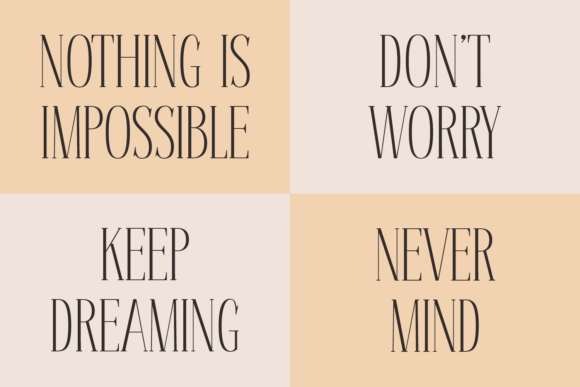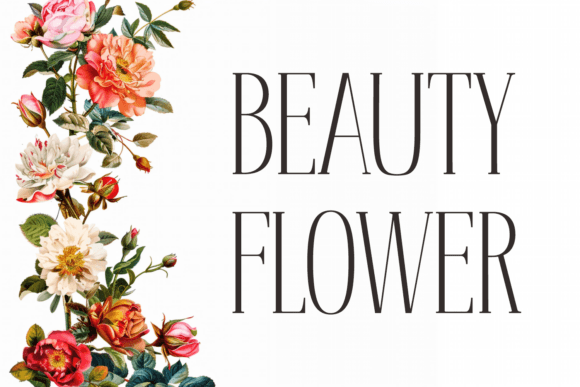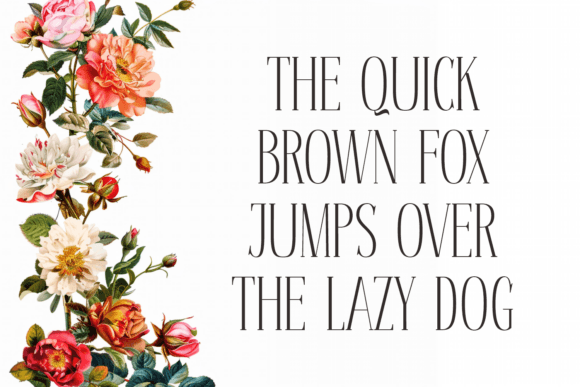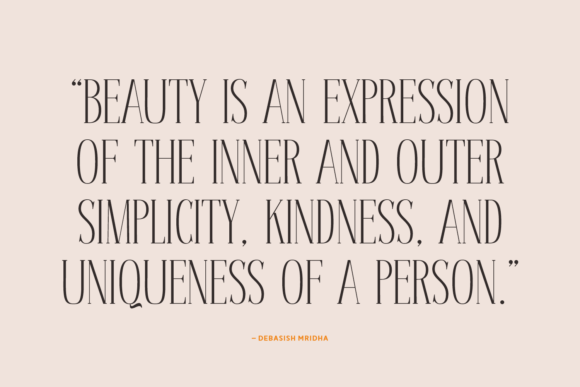
Davello Font
Davello is a simple serif font that combines classic and modern styles. It features clean lines and elegant curves, making it easy to read. Perfect for both print and digital projects, Davello adds a touch of sophistication to any design.